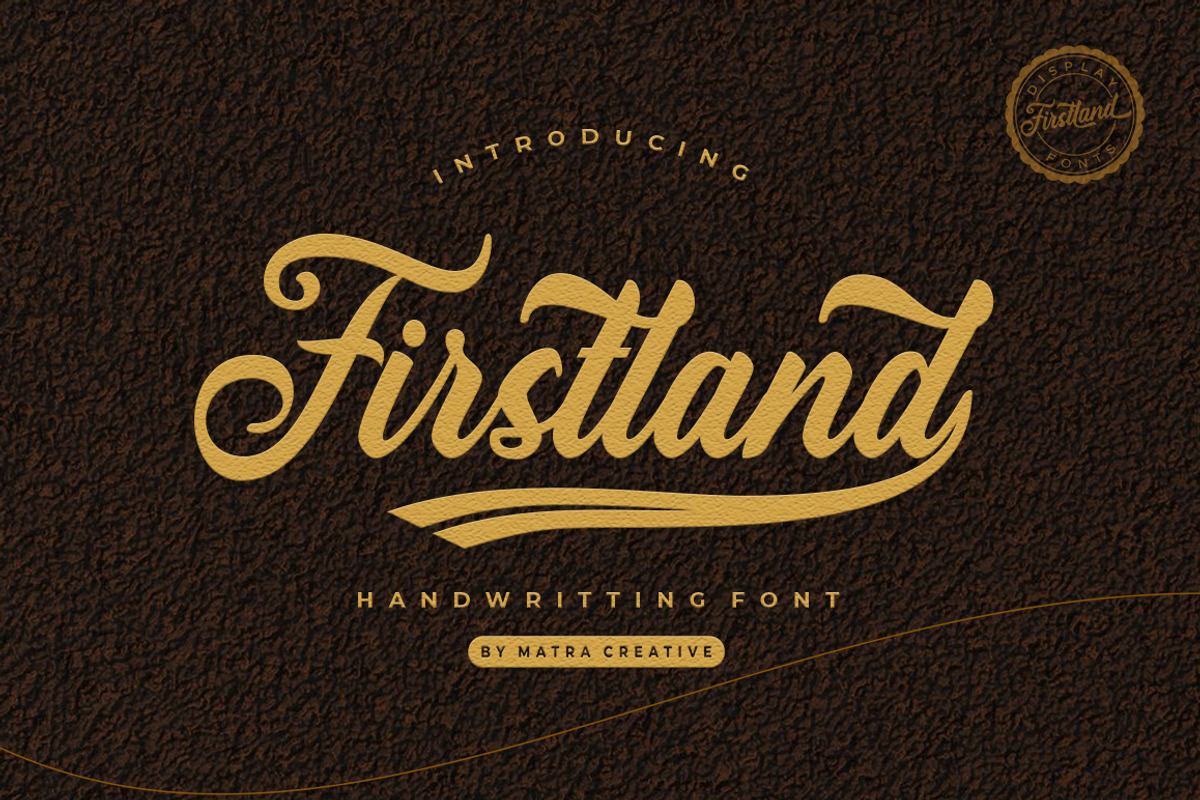
You must purchase this font for commercial use. However, you can download Firstland Font Free Download for testing purposes. Firstland is a modern, stylish font designed with versatility and readability in mind. Perfect for branding, logos, editorial layouts, websites, and more, this font combines contemporary design elements with a unique flair that stands out.
The clean, sleek letterforms of Firstland make it ideal for a variety of creative projects, whether you’re designing for a tech brand, a fashion line, or a minimalist event. Its modern aesthetic ensures that your typography looks fresh and professional, making it suitable for both large headings and smaller body text.